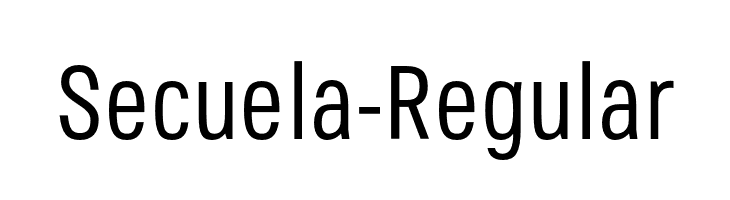
A modern sans-serif font with a clean, professional appearance and slightly condensed structure.
A modern, condensed sans-serif font with a clean and professional look.